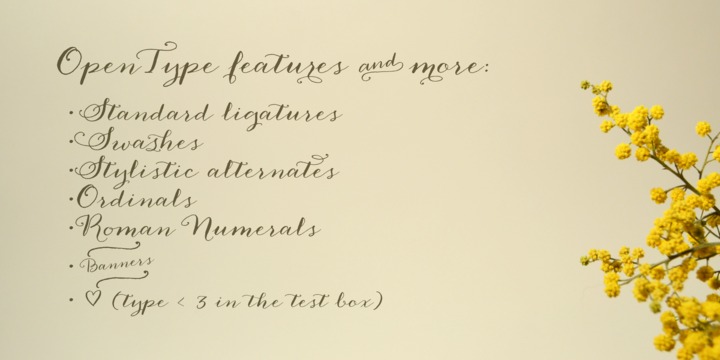
Chopped Black
Chopped Black which is perfect for headlines in newspapers, for quotations, for embedding in logos is dead black in color and the words written in it definitely draw attention. It is inspired from the fonts for Linotype designed by Chauncey Hawley Griffith, who set the standards of American newspaper with his font families. This font … Read more
Anna Clara
Anna Clara was designed by  Laura Condouris.  Anna Clara font is  an organic script, with the fine hairlines, thick swells, and slightly undulating baseline found in modern casual calligraphy. Anna Clara also features ten pairs of swashes that can be added to the beginning or end of any lowercase letter, for a custom flourished look. Download Anna Clara font … Read more